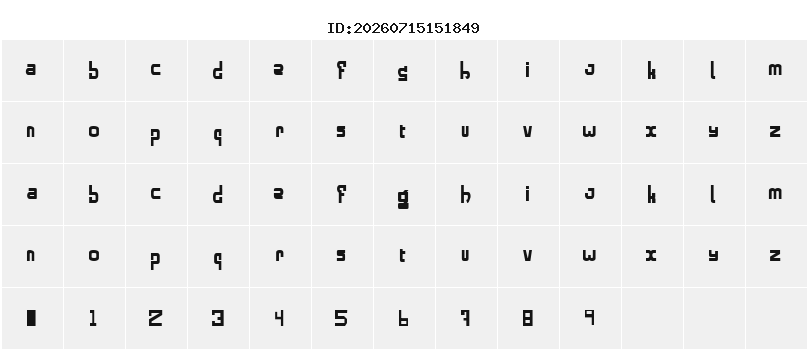
alphabold Preview
• Font Name: alphabold
• Font ID: Macromedia Fontographer 4.1 hawalli Bold
• Full Font Name: alphabold
• Version: Macromedia Fontographer 4.1 2/14/98
• PostScript Name: Alphabold
• Character Count: 97
About alphabold.ttf
alphabold.ttf is a modern, elegant sans-serif font designed for ultimate readability and visual harmony. Perfect for branding, headlines, web design, and print materials.